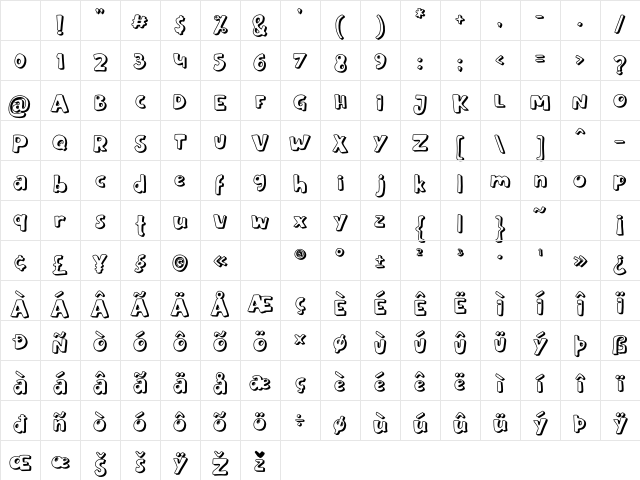
Complete Opal Orbit Shadow glyph index. Displaying only characters natively supported by Opal Orbit Shadow font.
Opal Orbit is built around its visual character rather than neutral utility - its distinctive forms are designed to make an impression at display sizes.
Font Pairing: Pair with a clean neutral sans-serif for body copy to let Opal Orbit's character lead without overwhelming the composition.
Pro Tip: Use Opal Orbit exclusively at display sizes - it was designed to be seen, not read at length. Let a neutral companion handle body copy.